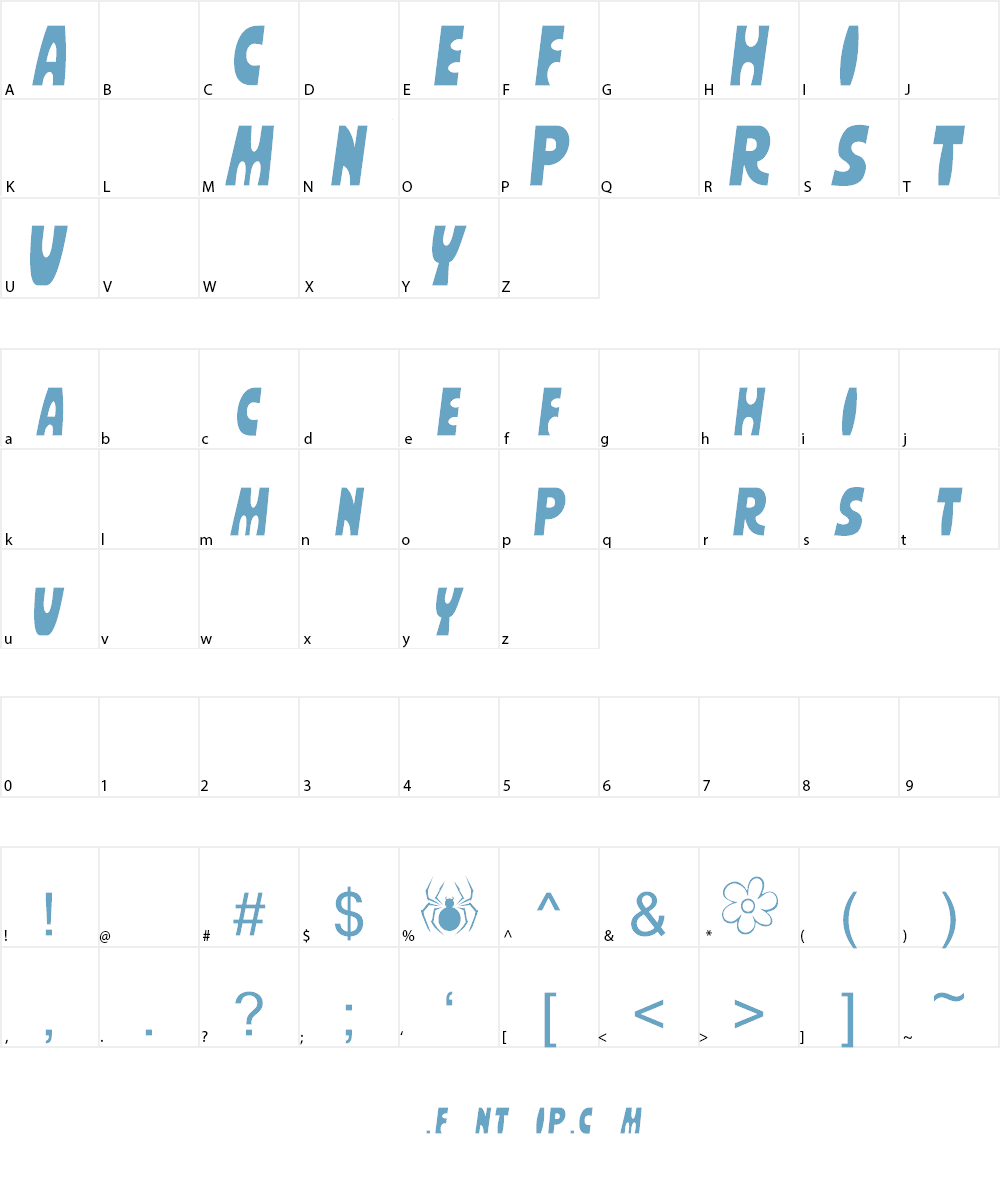
This custom font is based on funky retro typeface used on the vehicle used by Mystery Inc. the shape lends itself to be a 1960's era panel van. The vehicle is painted a medium blue with a distinctive horizontal green stripe around the van, adorn with two orange flowers. Each side of the van has a distinctive painted green panel with "THE MYSTERY MACHINE" painted in orange.